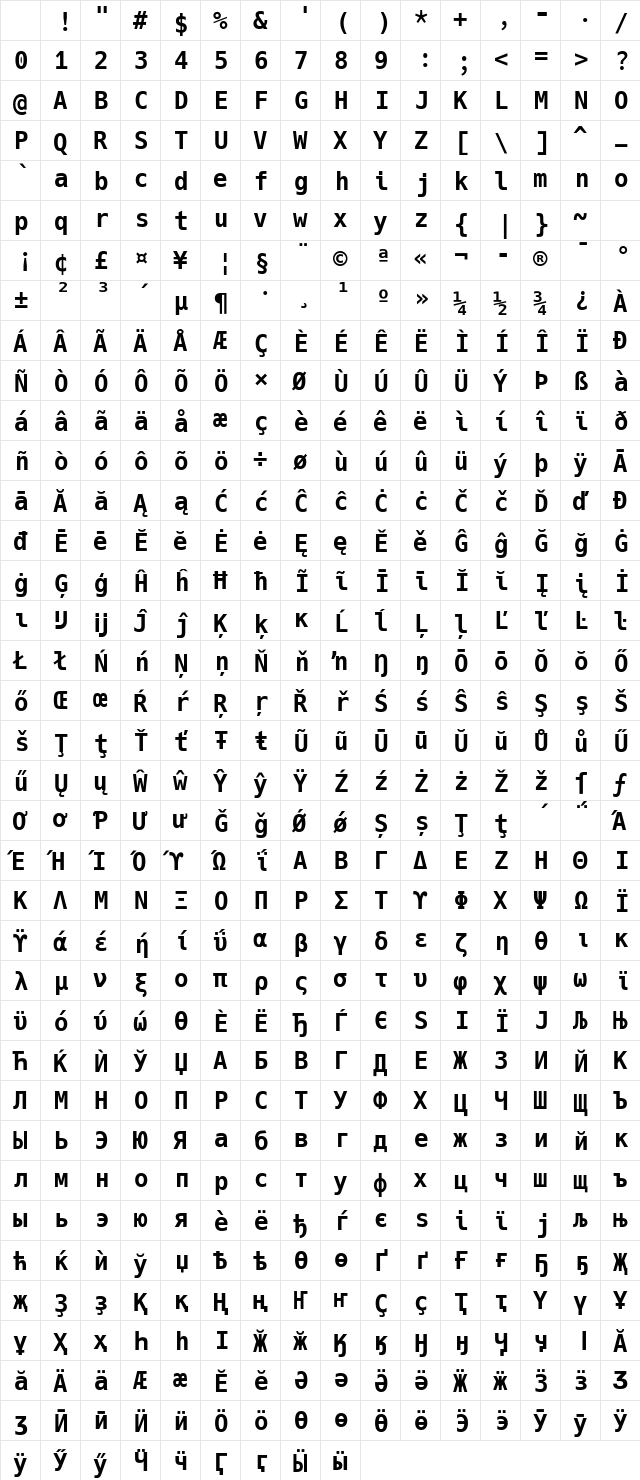
Complete Hack Nerd Font Bold glyph index. Displaying only characters natively supported by Hack Nerd Font Bold font.
Hack Nerd Font is a composed and adaptable typeface that performs quietly and consistently across a wide range of design contexts. Its bold stroke weight gives it real presence on the page.